12 Retro & Modern Display Fonts for Designers
Display fonts have a special way of turning ordinary designs into something impossible to ignore. Whether I’m creating bold branding, retro posters, social media graphics, or creative packaging, the right display font always becomes the centerpiece of the entire composition.
In this collection, I’ve gathered 12 creative display fonts that stand out through their personality, style, and visual impact. From vintage-inspired typography and groovy retro lettering to bold urban and playful styles, these fonts are perfect for designers who want their work to feel unique, expressive, and memorable.
Back to Vintage Display Font
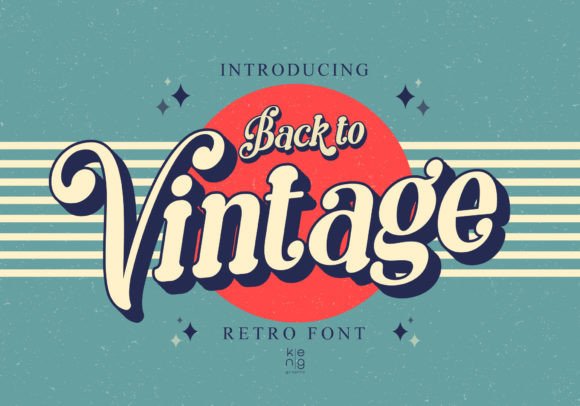
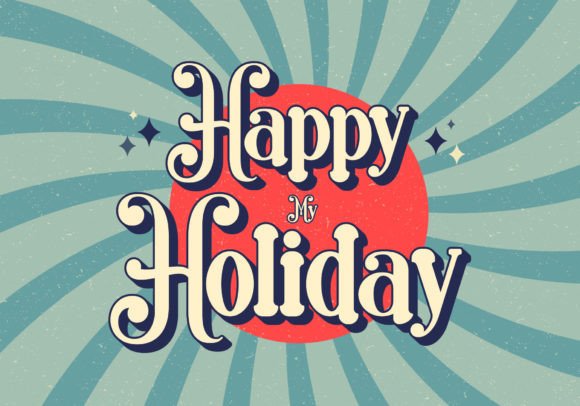
Back to Vintage is a retro display font that instantly brings nostalgic 60s, 70s, and 80s vibes into any design. I love using it for posters, branding, packaging, logos, apparel, and social media graphics because its soft rounded lettering feels bold, stylish, and memorable. This vintage-inspired font adds personality and a trendy retro aesthetic that makes creative projects stand out effortlessly.
Sunday Bright Display Font
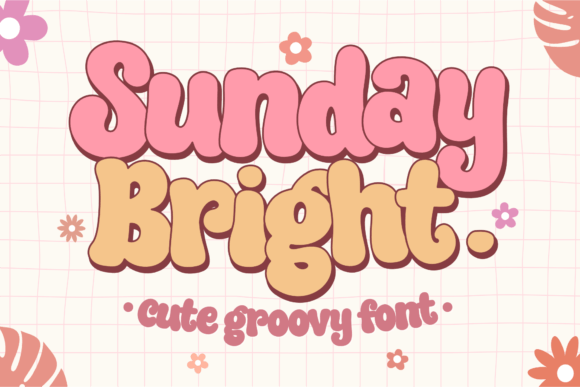
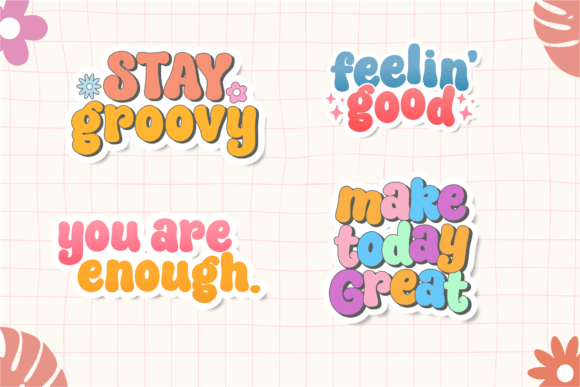
Sunday Bright is a fun groovy font that instantly adds playful retro energy to any design. I enjoy using it for posters, packaging, branding, merchandise, book covers, and social media graphics because its bold vintage style feels creative and eye-catching. The rounded retro lettering gives every project a cheerful personality while keeping the design trendy, modern, and full of character.
Good Vibes Only Duo Display Font
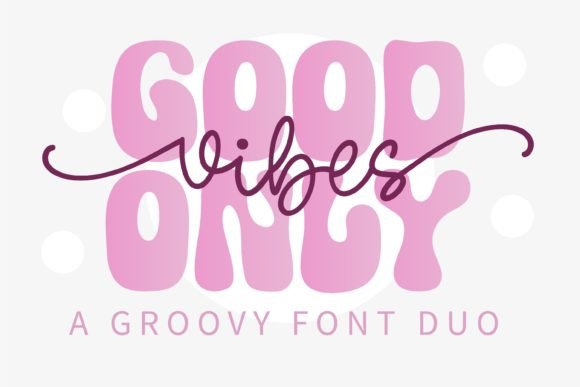
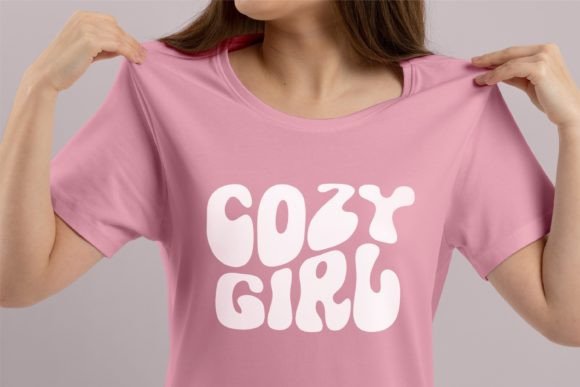
Good Vibes Only is a stylish retro duo font that combines a bold display typeface with a smooth monoline script. I love using it for groovy branding, posters, packaging, apparel, and social media graphics because it instantly creates a fun vintage aesthetic. Its hippie-inspired retro style adds personality, creativity, and a bold statement that makes every design stand out.
Varsity Spirit Display Font
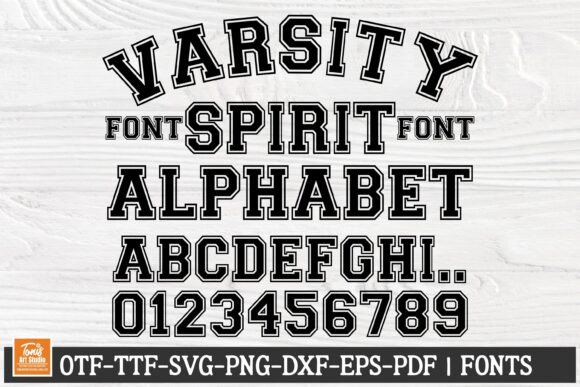
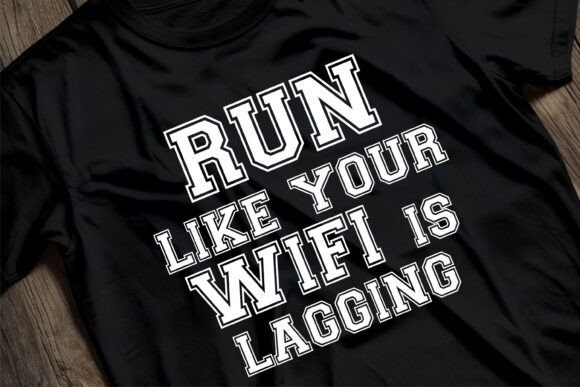
Varsity is a bold sports font that brings classic college and athletic style into any creative project. I like using it for team logos, jerseys, school spirit designs, Cricut projects, merchandise, and custom branding because its strong varsity lettering feels powerful and instantly recognizable. This retro athletic typeface adds energy, confidence, and a professional sports-inspired look to every design.
Simple Grinches Display Font
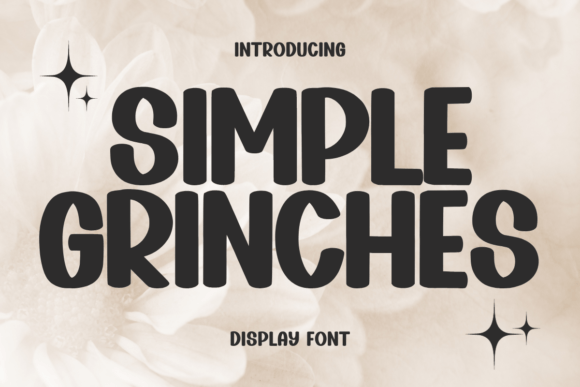
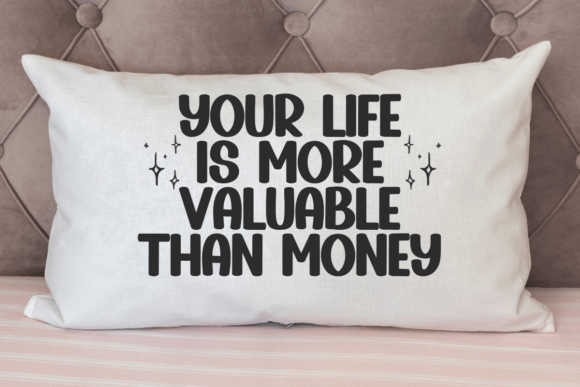
Simple Grinches is a clean and elegant display font that adds a stylish and timeless touch to any design. I enjoy using it for branding, posters, logos, packaging, invitations, and social media graphics because its modern lettering feels sophisticated and versatile. The refined design and unique character make every project look creative, polished, and visually memorable.
Designer Display Font
Designer is a simple and casual display font with an undeniably clean feel. With its neat and beautiful arrangement of letters, this typeface will look outstanding in both formal and non-formal designs.
De Augusta Display Font
De Augusta is a Vintage retro font inspired by retro typography and lettering in the 70s and 80s combined with a bold typography style.
This font is perfect for vintage and retro designs, badges, logos, t-shirts, posters, branding, packaging, signage, book covers, and so much more! This font is PUA encoded, which means you can access all of the glyphs and swashes with ease!
Vintage King Display Font
Vintage King is a bold retro display font that instantly gives designs a strong vintage personality. I love using it for headlines, branding, logos, posters, magazines, and packaging because its classic retro style feels powerful and eye-catching. The bold lettering and stylish vintage details make every project look trendy, creative, and full of nostalgic character.
Slime Display Font
Slime is a bold graffiti-style display font that brings an authentic street art vibe to any design. I enjoy using it for t-shirts, sportswear, posters, logos, advertisements, and urban branding because its edgy lettering feels energetic and modern. The creative graffiti style adds attitude, personality, and a strong visual impact that makes designs stand out instantly.
Triple Display Font
Triple is a cool and modern display font that works perfectly for creative and eye-catching designs. I like using it for custom branding, DIY crafts, posters, logos, packaging, and social media graphics because its bold style feels clean and versatile. The unique lettering adds a trendy and professional touch that helps every project look stylish and visually memorable.
Magic Unicorn Font
Magic Unicorn is a fun and playful display font that instantly adds joy and creativity to any design. I love using it for children’s projects, school designs, birthday invitations, posters, packaging, and cute branding because its charming style feels cheerful and imaginative. The whimsical lettering brings a magical personality that makes every creative project look colorful, friendly, and full of fun.
Final Thoughts
The right display font can completely transform the mood of a design and make it instantly more memorable. Whether you prefer bold retro styles, playful typography, street-inspired lettering, or modern creative fonts, each typeface in this collection brings its own unique energy and personality.